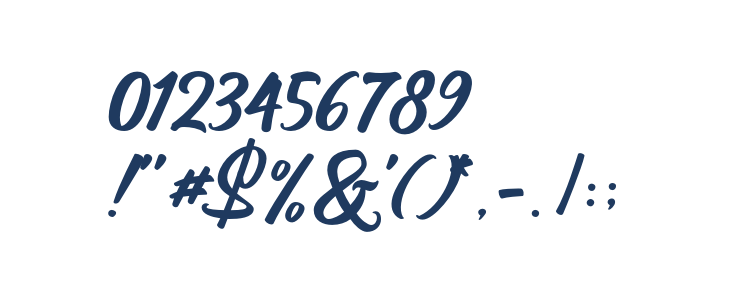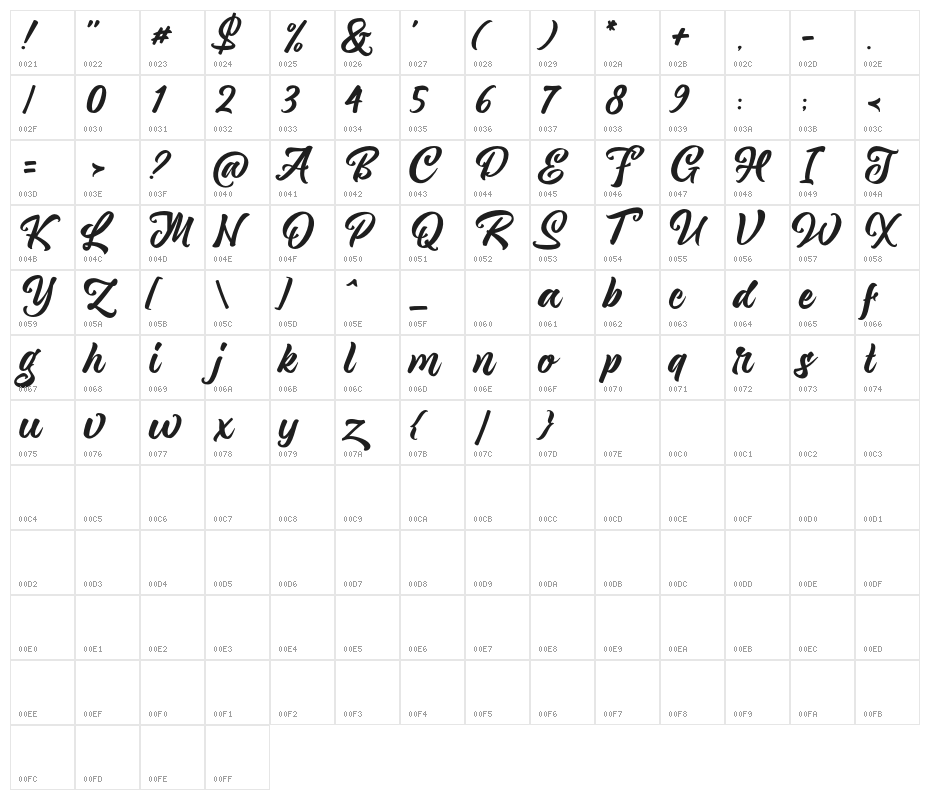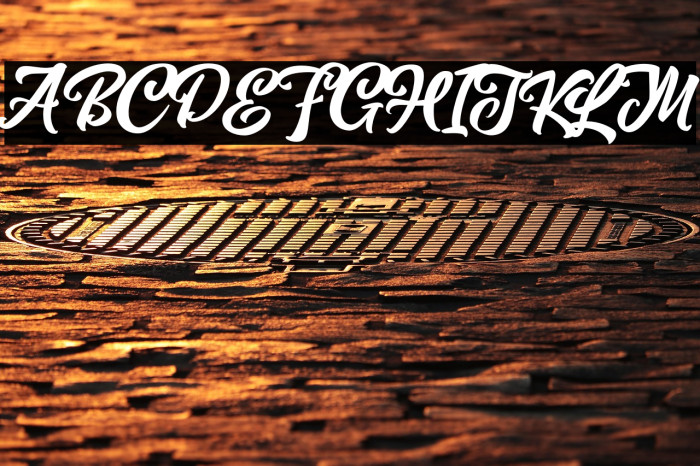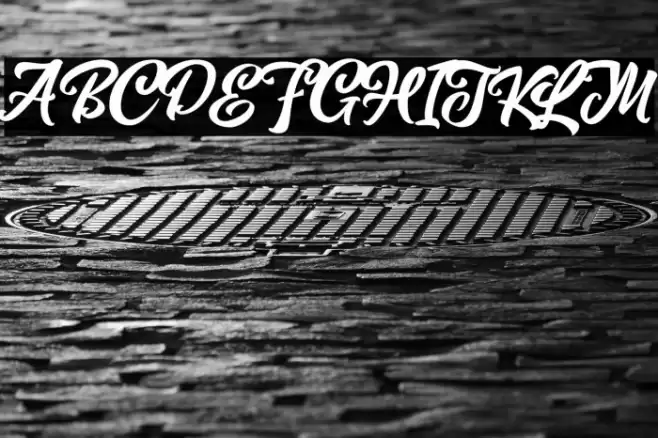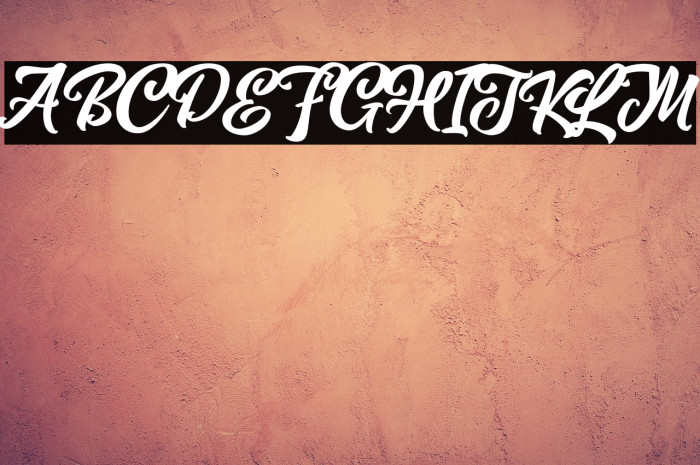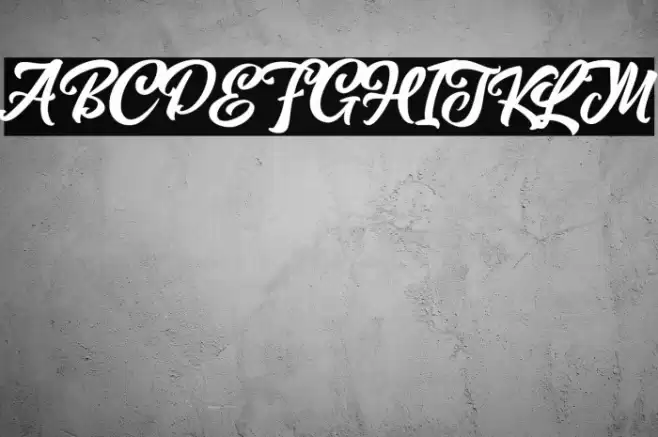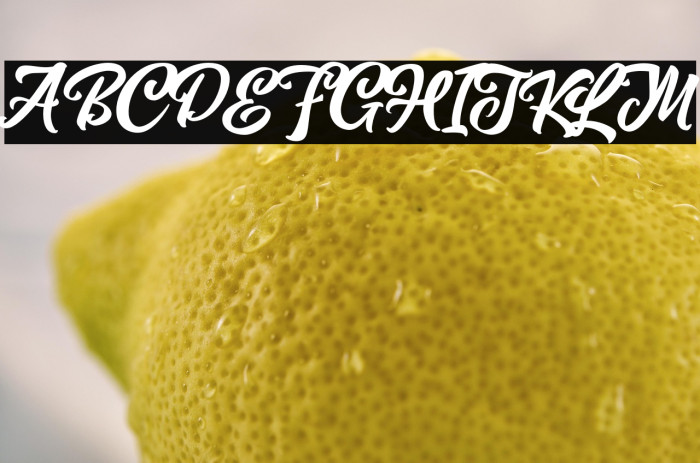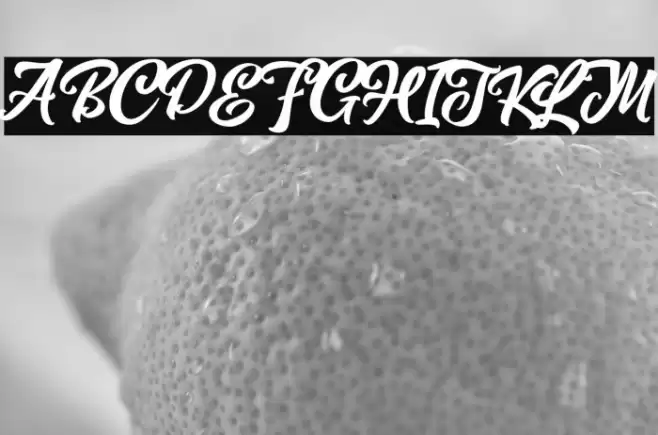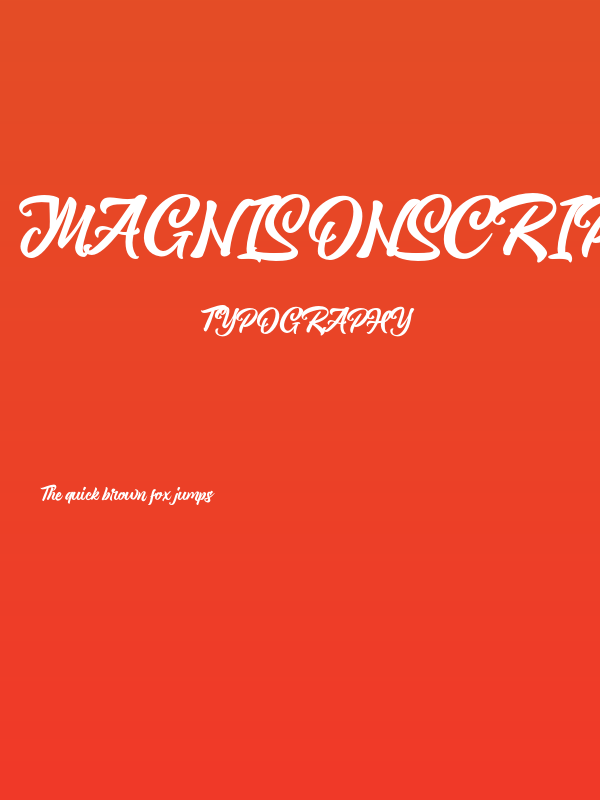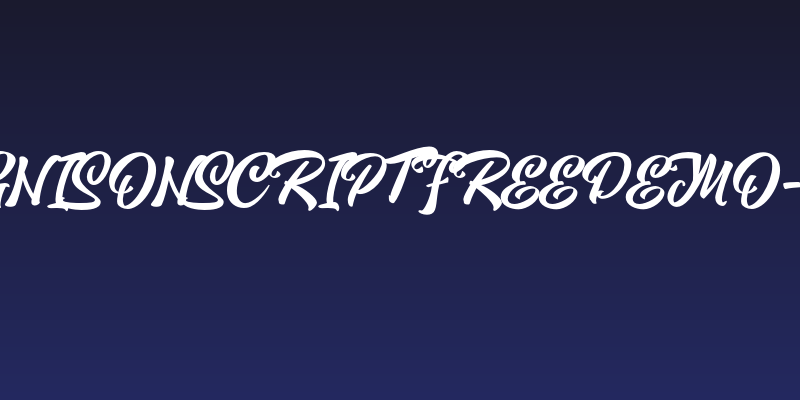
MagnisonScriptFreeDemo-Reg Font
MagnisonScriptFreeDemo-Reg Description
This font exudes a lively and dynamic energy, characterized by its flowing, cursive script style. The letters are interconnected with smooth, sweeping strokes that give it a sense of motion and elegance. The uppercase letters are bold and prominent, while the lowercase letters maintain a consistent fluidity, enhancing readability. The numerals are equally stylish, maintaining the script's overall aesthetic. Special characters are designed with flair, complementing the font's artistic nature. This script font is perfect for adding a personal touch to any design, making it ideal for creative projects.
| Proposed Projects | Ideal for wedding invitations, greeting cards, logos, and branding materials that require a personal and artistic touch. |